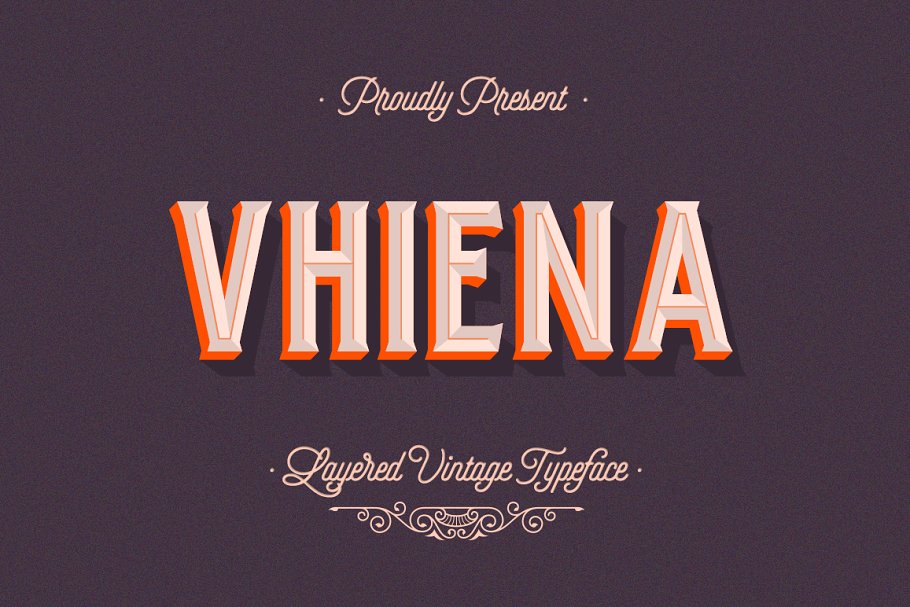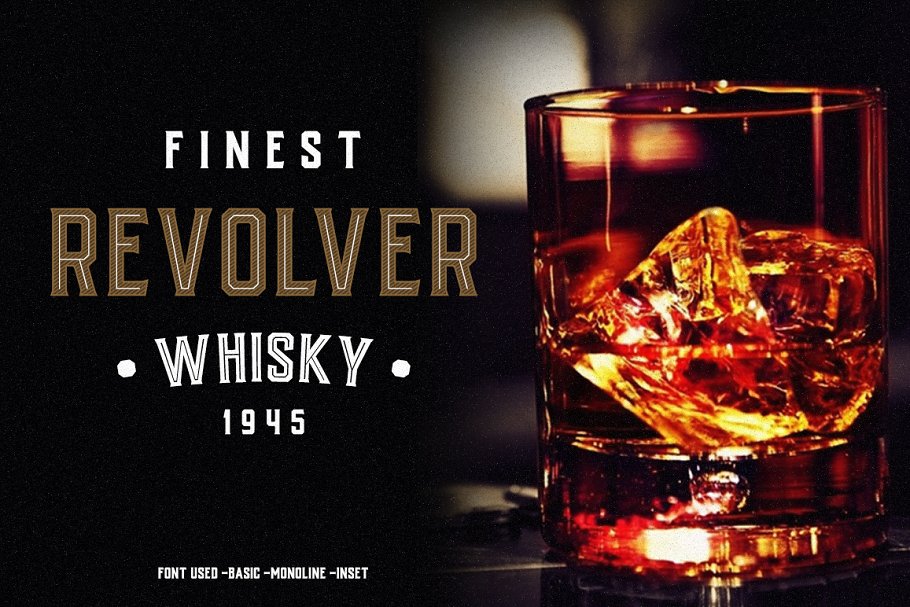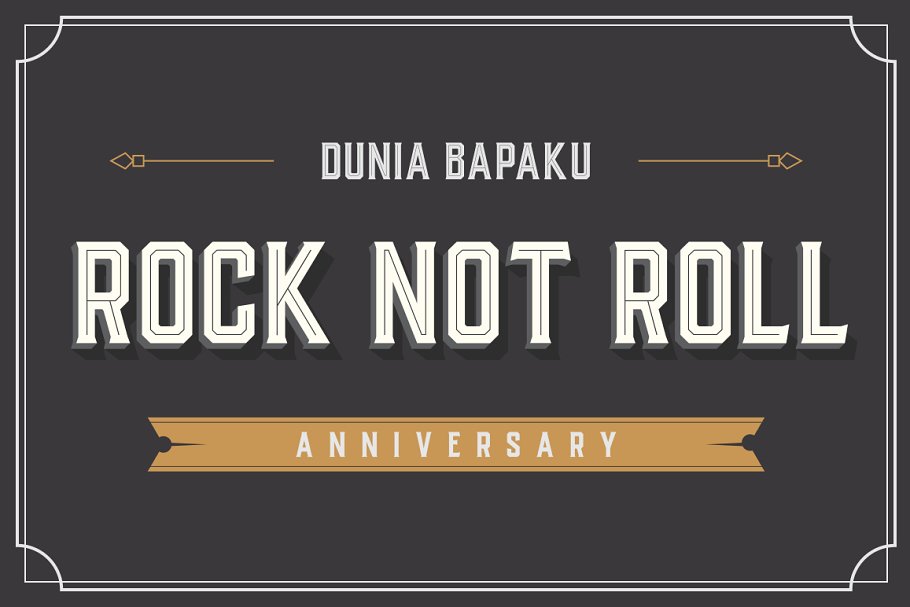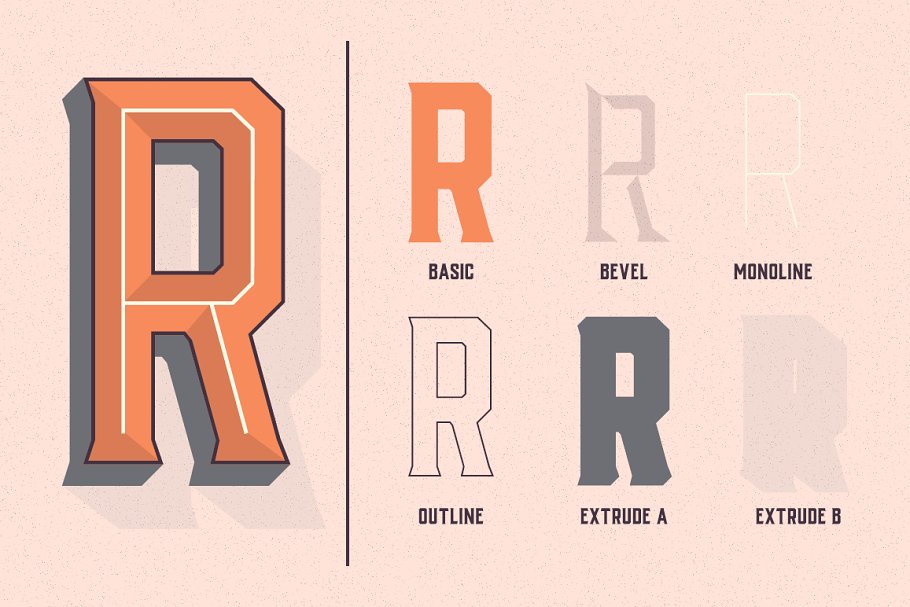
About the Vhiena Layered Type Font
Create your own effect thats a new tagline for our new Vhiena Type, just like i wrote before Vhiena is a vintage typeface was inspired by the likes of old serifs and classic bottles of whiskey and old labels, And for lot request we just added a new level of this typeface, We changed Vhiena Type to layered type with Endless Possibilities using 1 basic font and 7 styles effect fonts make your typography go to the next level